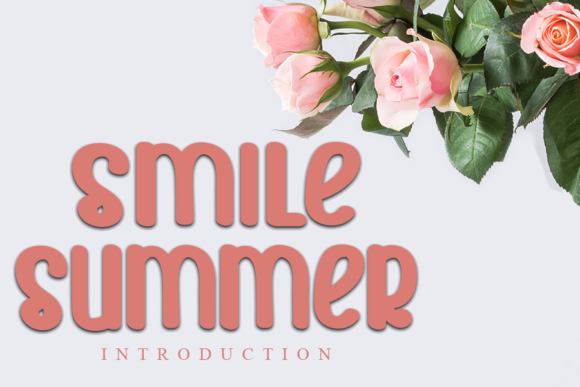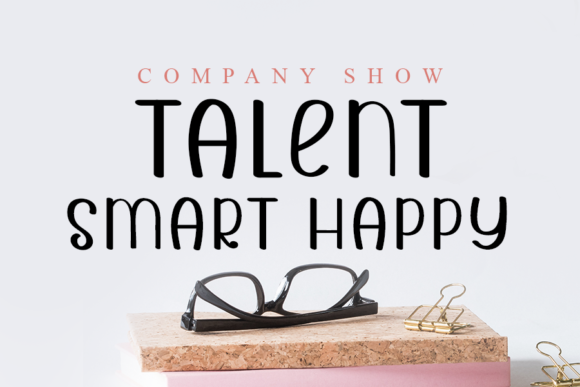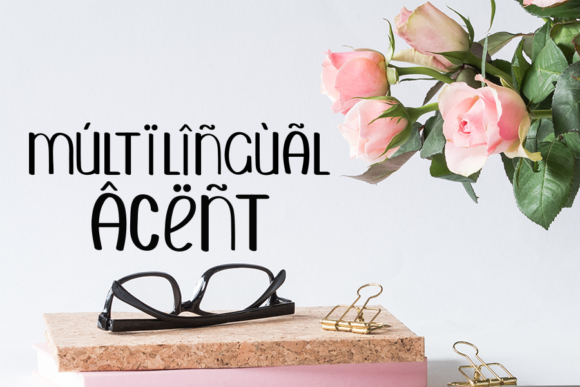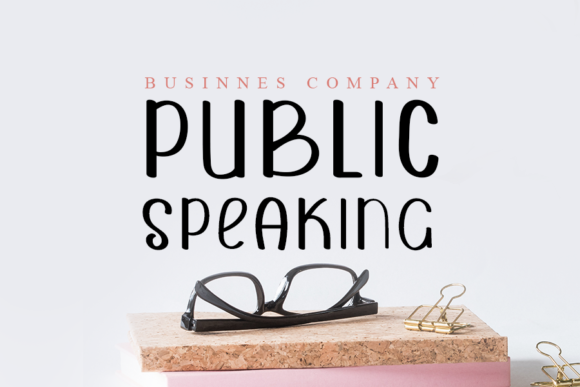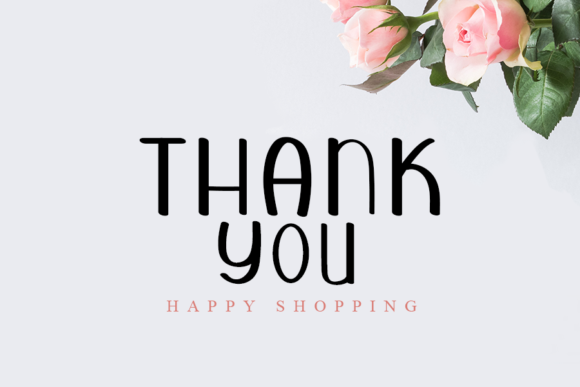
Smile Summer Font
Smile Summer is a unique and beautiful handwirtten font. This font will look outstanding in any context, whether it’s being used on busy backgrounds or as a standalone headline!